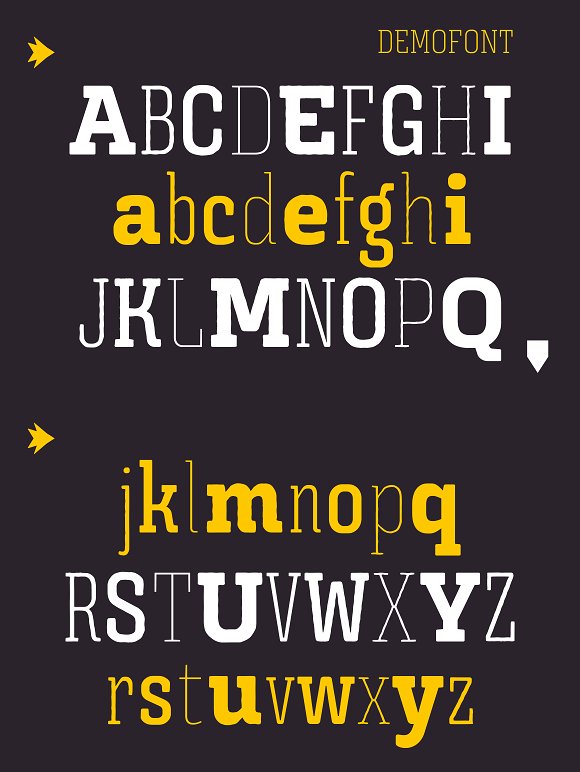
Triunfo Font Family
The typographical family TRIUNFO designed together with Manuel Corradine in CorradineFonts, has several weights that allow a wonderful diversity in the use of it also its versatility increases in the moment you discover that its letters include variety of width which makes it unique and special.
The typeface family TRIUNFO designed feat Manuel Corradine in CorradineFonts, has several weights that allow a wonderful diversity when it is used and its versatility increases when you discover that its letters include variety of width which makes it unique and special.